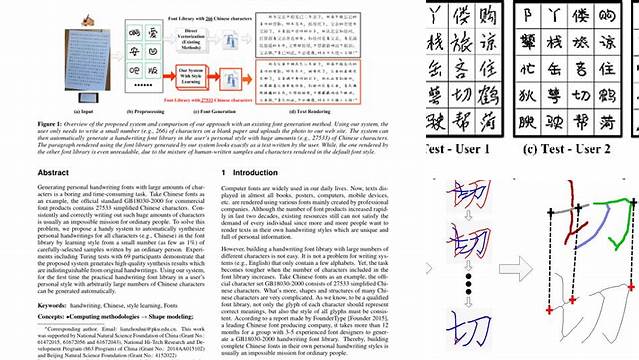
Generate Handwriting Fonts: Style Learning Guide
In the realm of typography and digital design, the ability to automatically generate large-scale handwriting fonts via style learning represents a significant leap forward. This innovative approach leverages machine learning techniques to create diverse and personalized fonts, opening up a myriad of creative possibilities for designers, artists, and anyone looking to add a personal touch to their digital content. Automatic generation of large-scale handwriting fonts via style learning allows for the creation of realistic and unique fonts that capture the nuances of human handwriting, offering a compelling alternative to traditional font design methods.
H3: The Basics of Handwriting Font Synthesis
Handwriting font synthesis involves creating digital fonts that mimic the appearance of human handwriting. This process typically involves analyzing a set of handwriting samples and extracting key features such as stroke thickness, slant, and letter spacing. These features are then used to generate new characters and glyphs that maintain the stylistic consistency of the original handwriting. The challenge lies in capturing the subtle variations and irregularities that make handwriting unique and authentic. Traditional methods often rely on manual design and painstaking adjustments, which can be time-consuming and require specialized expertise. However, with advancements in machine learning, automatic generation of large-scale handwriting fonts has become increasingly feasible and efficient.
The process of handwriting font synthesis usually begins with collecting a large dataset of handwriting samples. These samples are then pre-processed to remove noise and standardize the writing style. Feature extraction techniques are applied to identify and quantify the various aspects of the handwriting, such as stroke width, letter height, and baseline alignment. These features are then used to train a machine learning model, which can generate new characters based on the learned patterns. The generated characters are refined and assembled into a complete font, which can be used in various digital applications.
The key to successful handwriting font synthesis is the ability to accurately capture the stylistic characteristics of the handwriting. This requires sophisticated algorithms that can handle the variability and complexity of human writing. Recent advancements in deep learning have enabled the development of more powerful and flexible models that can generate highly realistic handwriting fonts. These models can learn from large datasets of handwriting samples and produce fonts that closely resemble the original handwriting style. The potential applications of handwriting font synthesis are vast, ranging from personalized digital communication to artistic design and branding.
H3: The Role of Machine Learning
Machine learning plays a crucial role in automatic generation of large-scale handwriting fonts via style learning. By training algorithms on vast datasets of handwritten samples, these systems can learn the intricate patterns and variations inherent in individual writing styles. This allows for the creation of fonts that are not only aesthetically pleasing but also authentically representative of human handwriting. The ability of machine learning models to generalize from training data enables the generation of new characters and glyphs that maintain the stylistic consistency of the original handwriting. This is particularly useful for creating complete fonts that cover a wide range of characters and symbols.
One of the key advantages of using machine learning for handwriting font generation is its ability to automate the design process. Traditional font design methods often require manual adjustments and fine-tuning to achieve the desired aesthetic. Machine learning algorithms can learn from examples and automatically generate fonts that meet specific stylistic requirements. This can significantly reduce the time and effort required to create new fonts. Moreover, machine learning models can be trained on multiple handwriting styles, allowing for the creation of hybrid fonts that combine elements from different writing styles. This opens up new possibilities for creative expression and font design. The use of machine learning also enables the creation of personalized fonts that are tailored to individual users. By training a model on a user's own handwriting samples, it is possible to generate a font that accurately reflects their unique writing style.
Furthermore, machine learning algorithms can be used to enhance the quality of existing handwriting fonts. For example, they can be used to correct inconsistencies in the font or to generate missing characters. This can be particularly useful for preserving and restoring historical handwriting samples. The combination of machine learning and traditional font design techniques can lead to the creation of fonts that are both aesthetically pleasing and technically sound. The future of handwriting font generation is likely to be driven by further advancements in machine learning, with the development of more sophisticated and versatile algorithms that can capture the nuances of human writing.
H3: Style Learning Techniques
Style learning techniques are at the heart of automatic generation of large-scale handwriting fonts via style learning. These techniques involve training machine learning models to extract and replicate the stylistic characteristics of a given handwriting sample. This can be achieved through various methods, including deep learning architectures such as recurrent neural networks (RNNs) and generative adversarial networks (GANs). RNNs are particularly well-suited for capturing the sequential nature of handwriting, while GANs can generate realistic and diverse font styles. By leveraging these advanced techniques, it is possible to create fonts that accurately reflect the nuances and irregularities of human handwriting.
One common approach to style learning is to train a model to generate handwriting samples conditioned on a specific style code. The style code represents the stylistic characteristics of the handwriting, such as stroke thickness, slant, and letter spacing. The model learns to map the style code to the corresponding handwriting samples, allowing it to generate new characters that maintain the stylistic consistency of the original handwriting. This approach can be used to create fonts that are tailored to specific aesthetic requirements. For example, a designer could specify a style code that corresponds to a particular historical handwriting style, and the model would generate a font that closely resembles that style.
Another approach is to use GANs to generate handwriting fonts. GANs consist of two neural networks: a generator and a discriminator. The generator learns to generate handwriting samples, while the discriminator learns to distinguish between real and generated samples. The two networks are trained in an adversarial manner, with the generator trying to fool the discriminator and the discriminator trying to identify the generated samples. This process leads to the generation of highly realistic and diverse handwriting fonts. GANs can also be used to generate fonts that combine elements from different handwriting styles, allowing for the creation of unique and innovative font designs. The development of new and improved style learning techniques is an ongoing area of research, with the goal of creating more realistic and versatile handwriting fonts.
H3: Data Collection and Preprocessing
The initial step in automatic generation of large-scale handwriting fonts via style learning involves gathering a substantial and diverse dataset of handwriting samples. This data serves as the foundation for training the machine learning models. The quality and quantity of the data directly impact the accuracy and realism of the generated fonts. Preprocessing the collected data is crucial to ensure consistency and remove noise, preparing it for effective model training. This preprocessing typically includes tasks like image cleaning, normalization, and segmentation, which enhance the model's ability to learn the underlying patterns of handwriting.
Data collection can involve scanning handwritten documents, collecting digital handwriting samples, or utilizing existing handwriting datasets. The key is to obtain a representative sample of the desired handwriting style. This may involve collecting data from multiple individuals or focusing on a specific writing style. The data should also include a variety of characters and symbols to ensure that the generated font is complete and versatile. Once the data is collected, it needs to be preprocessed to remove noise and standardize the writing style. This may involve correcting for variations in pen pressure, slant, and letter size. The data should also be segmented into individual characters, which can be used to train the machine learning model. The accuracy of the segmentation process is critical to the quality of the generated font. Inaccurate segmentation can lead to the generation of distorted or incomplete characters. The preprocessed data is then used to train the machine learning model, which learns to generate new characters based on the learned patterns. The quality of the data and the effectiveness of the preprocessing techniques directly impact the performance of the model and the quality of the generated font.
H3: Model Training and Optimization
Once the data is meticulously prepared, the next pivotal phase is model training and optimization. This process involves feeding the preprocessed handwriting data into a chosen machine learning model, such as a recurrent neural network (RNN) or a generative adversarial network (GAN). The model learns the intricate patterns and stylistic nuances of the handwriting through iterative training. Optimization techniques, such as adjusting hyperparameters and refining the model architecture, are employed to enhance the model's performance and ensure the generated fonts exhibit the desired characteristics.
During model training, the machine learning model is exposed to the preprocessed handwriting data and learns to generate new characters based on the learned patterns. The model is trained to minimize the difference between the generated characters and the real characters in the training data. This process is repeated iteratively until the model converges and can generate characters that closely resemble the original handwriting style. Optimization techniques are used to improve the performance of the model and ensure that it can generate high-quality fonts. This may involve adjusting the learning rate, batch size, and other hyperparameters of the model. The model architecture may also be refined to improve its ability to capture the stylistic characteristics of the handwriting. The optimization process is crucial to the success of the automatic font generation process. A well-trained and optimized model can generate fonts that are both aesthetically pleasing and technically sound. The use of advanced optimization techniques can significantly improve the quality of the generated fonts. The model is continuously evaluated and refined until it meets the desired performance criteria.
H3: Font Generation and Refinement
Following successful model training, the stage is set for generating the complete font. The trained model is used to create all the necessary characters, symbols, and glyphs required for a fully functional font. However, the generated font may not be perfect right away. It often requires refinement to correct any imperfections or inconsistencies. This refinement process may involve manual adjustments or further training of the model to improve the font's overall quality and aesthetics. Automatic generation of large-scale handwriting fonts via style learning is a powerful tool.
The font generation process involves using the trained machine learning model to generate new characters based on the learned patterns. The model can generate a complete font, including all the necessary characters, symbols, and glyphs. However, the generated font may not be perfect right away. It may contain imperfections or inconsistencies that need to be corrected. The refinement process involves manually adjusting the generated characters to improve their quality and aesthetics. This may involve correcting for errors in the character shape, stroke width, or letter spacing. The refinement process may also involve further training of the model to improve its ability to generate high-quality fonts. The refined font is then tested and evaluated to ensure that it meets the desired performance criteria. The font is continuously refined until it is ready for use. The refinement process is crucial to the success of the automatic font generation process. A well-refined font is both aesthetically pleasing and technically sound.
H3: Personalized Digital Communication
One of the most exciting applications of automatic generation of large-scale handwriting fonts via style learning lies in personalized digital communication. Imagine being able to send emails, messages, or digital notes in your own handwriting style! This technology makes it possible, adding a personal and intimate touch to your digital interactions. Whether it's a heartfelt message to a loved one or a professional email with a unique flair, personalized handwriting fonts can make your communication stand out and feel more authentic. The ability to express yourself through your own handwriting in the digital realm opens up a world of possibilities for creative and meaningful communication.
The use of personalized handwriting fonts can also enhance the accessibility of digital communication for individuals with disabilities. For example, people with dyslexia may find it easier to read text written in a handwriting font that mimics their own writing style. This can improve their reading comprehension and make digital content more accessible. Similarly, people with visual impairments can use personalized handwriting fonts to create larger and more readable text. The ability to customize the font to meet individual needs can significantly improve the accessibility of digital communication for a wide range of users. Furthermore, personalized handwriting fonts can be used to create more engaging and interactive learning materials. Students can use their own handwriting fonts to create notes, assignments, and presentations, which can make learning more fun and effective. The use of personalized handwriting fonts can also promote creativity and self-expression in the classroom. The potential applications of personalized handwriting fonts in education are vast and promising. The development of new and improved handwriting font generation techniques is likely to further enhance the accessibility and personalization of digital communication.
H3: Enhanced Branding and Design
For businesses and brands, automatic generation of large-scale handwriting fonts via style learning offers a powerful tool for creating a unique and memorable identity. A custom handwriting font can be used in logos, marketing materials, and website design to convey a sense of authenticity and personality. This can help brands stand out from the competition and connect with their audience on a more personal level. Whether it's a whimsical and playful font for a children's brand or an elegant and sophisticated font for a luxury brand, the possibilities are endless. The ability to create a custom font that perfectly reflects the brand's values and identity is a valuable asset in today's competitive market.
The use of custom handwriting fonts can also enhance the visual appeal of marketing materials and website design. A well-designed font can make a website more engaging and user-friendly. It can also improve the readability of text and make it easier for visitors to find the information they are looking for. Custom handwriting fonts can also be used to create visually appealing logos and graphics. A unique and memorable logo can help a brand stand out from the competition and attract new customers. The potential applications of custom handwriting fonts in branding and design are vast and varied. The development of new and improved handwriting font generation techniques is likely to further enhance the creativity and innovation in this field. Businesses can use custom handwriting fonts to create a consistent brand identity across all their marketing channels. This can help to build brand recognition and loyalty. The use of custom handwriting fonts can also create a sense of authenticity and personality, which can help to connect with customers on a more personal level.
H3: Artistic and Creative Applications
Beyond communication and branding, this technology opens up exciting possibilities for artistic and creative expression. Artists can use automatically generated handwriting fonts to create unique and personalized artwork, adding a personal touch to their creations. Designers can experiment with different handwriting styles to develop innovative and visually appealing designs. Whether it's creating custom typography for posters, designing unique greeting cards, or adding handwritten elements to digital art, the applications are limited only by imagination. The ability to seamlessly integrate handwriting into digital art and design workflows expands the creative palette and allows for new forms of artistic expression.
The use of automatically generated handwriting fonts can also facilitate collaboration between artists and designers. Artists can create handwriting samples that designers can then use to generate custom fonts for their projects. This can lead to the creation of unique and innovative designs that would not be possible without the use of this technology. Furthermore, automatically generated handwriting fonts can be used to create accessible art and design for people with disabilities. For example, visually impaired individuals can use custom handwriting fonts to create tactile art that they can feel. Similarly, people with dyslexia can use handwriting fonts to create more accessible reading materials. The potential applications of automatically generated handwriting fonts in art and design are vast and promising. The development of new and improved handwriting font generation techniques is likely to further enhance the creativity and innovation in this field. Artists and designers can use these fonts to create unique and personalized artwork, designs, and learning materials that are both aesthetically pleasing and functional.
H3: Restoration of Historical Documents
Automatic font generation is also being used to restore historical documents and preserve cultural heritage. By creating digital fonts that mimic the handwriting styles of historical figures, researchers and archivists can transcribe and reproduce old manuscripts with greater accuracy and authenticity. This technology helps to bring history to life and make historical texts more accessible to a wider audience. The ability to preserve and share historical documents in their original handwriting style is invaluable for cultural preservation and historical research.
The use of automatic font generation can also facilitate the digitization of historical documents. By creating digital fonts that mimic the handwriting styles of historical figures, researchers and archivists can transcribe and reproduce old manuscripts with greater accuracy and efficiency. This can significantly reduce the time and effort required to digitize historical documents and make them available to a wider audience. Furthermore, automatic font generation can be used to create interactive learning resources that allow students to explore historical documents and learn about the handwriting styles of historical figures. The potential applications of automatic font generation in the field of historical preservation are vast and promising. The development of new and improved handwriting font generation techniques is likely to further enhance the accuracy and efficiency of this process. Researchers and archivists can use these techniques to create high-quality digital fonts that capture the nuances of historical handwriting styles and preserve cultural heritage for future generations.
H3: Capturing Handwriting Nuances
One of the primary challenges in automatic generation of large-scale handwriting fonts via style learning lies in accurately capturing the subtle nuances of human handwriting. Handwriting is a complex and highly individualistic process, influenced by a variety of factors such as mood, writing surface, and writing instrument. Replicating these nuances in a digital font requires sophisticated algorithms and large datasets of handwriting samples. While current machine learning models have made significant progress, there is still room for improvement in capturing the full range of human handwriting variations. The ability to accurately capture these nuances is crucial for creating fonts that are both realistic and aesthetically pleasing.
Another challenge is to ensure that the generated fonts are consistent and legible. Handwriting can be inconsistent, with variations in letter shape, spacing, and slant. It is important to develop algorithms that can smooth out these inconsistencies and create fonts that are easy to read. This requires careful attention to detail and a deep understanding of the principles of typography. Furthermore, it is important to develop techniques for generating fonts that are adaptable to different writing styles and languages. Handwriting styles vary significantly across different cultures and regions. It is important to develop algorithms that can learn from different handwriting styles and generate fonts that are appropriate for different languages and cultures. The development of new and improved handwriting font generation techniques is an ongoing area of research, with the goal of creating more realistic, consistent, and adaptable fonts.
H3: Scalability and Efficiency
Scalability and efficiency are also important considerations. Generating large-scale handwriting fonts requires significant computational resources and time. As the demand for personalized fonts grows, it is essential to develop more efficient algorithms and scalable systems that can handle the increasing workload. This may involve exploring new machine learning architectures, optimizing existing algorithms, and leveraging cloud computing resources. The ability to generate fonts quickly and efficiently is crucial for widespread adoption of this technology.
One approach to improving scalability and efficiency is to use distributed computing techniques. This involves distributing the computational workload across multiple machines, which can significantly reduce the time required to generate fonts. Another approach is to use caching techniques to store frequently used characters and glyphs. This can reduce the number of times that the machine learning model needs to be run, which can save time and resources. Furthermore, it is important to develop techniques for generating fonts that are optimized for different devices and platforms. Fonts that are designed for print may not be suitable for use on mobile devices or web browsers. It is important to develop techniques for generating fonts that are adaptable to different screen sizes and resolutions. The development of new and improved algorithms and systems is an ongoing area of research, with the goal of creating more scalable and efficient handwriting font generation technologies.
H3: Ethical Considerations
As with any technology that involves personal data, ethical considerations are paramount. When generating handwriting fonts based on individual writing styles, it is essential to protect user privacy and obtain informed consent. Data security measures must be implemented to prevent unauthorized access to handwriting samples. Additionally, it is important to address potential biases in the data and algorithms to ensure fairness and avoid perpetuating stereotypes. Responsible development and deployment of this technology require careful consideration of these ethical issues.
One of the key ethical considerations is the potential for misuse of this technology. For example, handwriting fonts could be used to create fake documents or to impersonate individuals. It is important to develop safeguards to prevent such misuse. This may involve implementing authentication mechanisms to verify the authenticity of fonts or developing techniques for detecting forged documents. Furthermore, it is important to educate users about the potential risks and benefits of this technology. Users should be aware of the potential for misuse and should be encouraged to use this technology responsibly. The development of ethical guidelines and best practices is an ongoing area of discussion, with the goal of promoting the responsible use of handwriting font generation technologies. Collaboration between researchers, developers, and policymakers is essential to ensure that this technology is used in a way that benefits society as a whole.
In conclusion, automatic generation of large-scale handwriting fonts via style learning represents a significant advancement in the field of typography and digital design. By leveraging machine learning techniques, this technology enables the creation of personalized and realistic fonts that capture the nuances of human handwriting. From personalized digital communication to enhanced branding and artistic applications, the potential benefits are vast and varied. While challenges remain in capturing handwriting nuances, scalability, and ethical considerations, ongoing research and development efforts are paving the way for a future where everyone can express themselves through their own unique handwriting font. This technology promises to transform the way we communicate, create, and interact with the digital world.